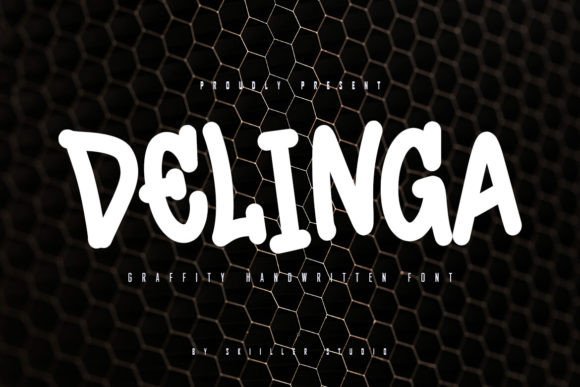
Introducing Delinga Font: The Ultimate Graffiti Font for Fun Projects
Are you looking for a font that can add a playful touch to your projects? Look no further than Delinga Font, a vibrant and energetic graffiti font perfect for fun projects like children’s parties, cute quotes, and more. In this article, we’ll explore the features and benefits of Delinga Font and why it’s the perfect choice for your next creative endeavor.
What is Delinga Font?
Delinga Font is a unique and creative graffiti font designed to bring a playful and carefree vibe to your projects. Its bold and colorful design makes it perfect for eye-catching headlines, titles, and quotes. The font is carefully crafted to ensure that it’s easy to read and understand, making it suitable for a wide range of applications.
Benefits of Using Delinga Font
- Perfect for Fun Projects: Delinga Font is designed specifically for fun projects like children’s parties, cute quotes, and other playful endeavors. Its vibrant and energetic design is sure to capture the attention of your audience.
- Easy to Read: Despite its bold and graffiti-style design, Delinga Font is easy to read and understand. This makes it perfect for use in titles, headings, and quotes.
- Highly Versatile: Delinga Font can be used in a wide range of applications, from digital projects like social media graphics and presentations to print materials like posters and flyers.
- Unique and Creative: Delinga Font is a one-of-a-kind font that will set your project apart from the rest. Its unique design ensures that your project will stand out and grab attention.
How to Use Delinga Font
Using Delinga Font is easy and straightforward. Here are a few tips to get you started:
- Pair it with Other Fonts: Delinga Font pairs well with other fonts, especially sans-serif fonts. Try pairing it with a clean and simple font to create a striking contrast.
- Use it for Headings and Titles: Delinga Font is perfect for headings and titles. Use it to create eye-catching headlines that grab attention.
- Experiment with Colors: Delinga Font comes in a range of colors. Experiment with different colors to find the one that works best for your project.
Project Ideas Using Delinga Font
Delinga Font is perfect for a wide range of fun projects. Here are a few ideas to get you started:
- Children’s Party Invitations: Create fun and colorful invitations for children’s parties using Delinga Font.
- Cute Quotes and Posters: Use Delinga Font to create cute and inspiring quotes and posters.
- Social Media Graphics: Use Delinga Font to create eye-catching social media graphics that grab attention.
- Event Flyers: Create fun and colorful flyers for events like concerts, festivals, and more.